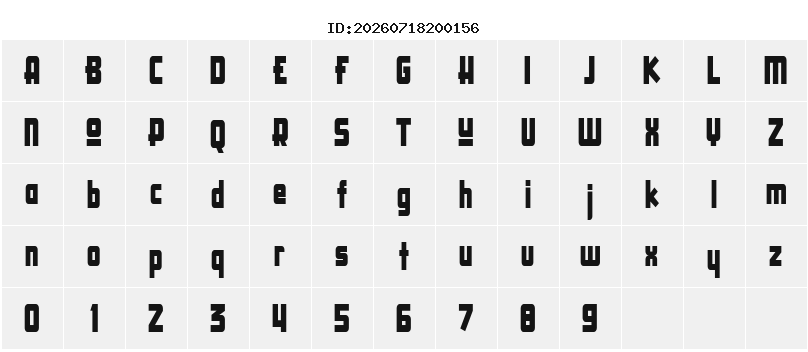
Creativity  ttstd Preview
About Creativity ttstd.ttf
Creativity ttstd.ttf is a modern, elegant sans-serif font designed for ultimate readability and visual harmony. Perfect for branding, headlines, web design, and print materials.